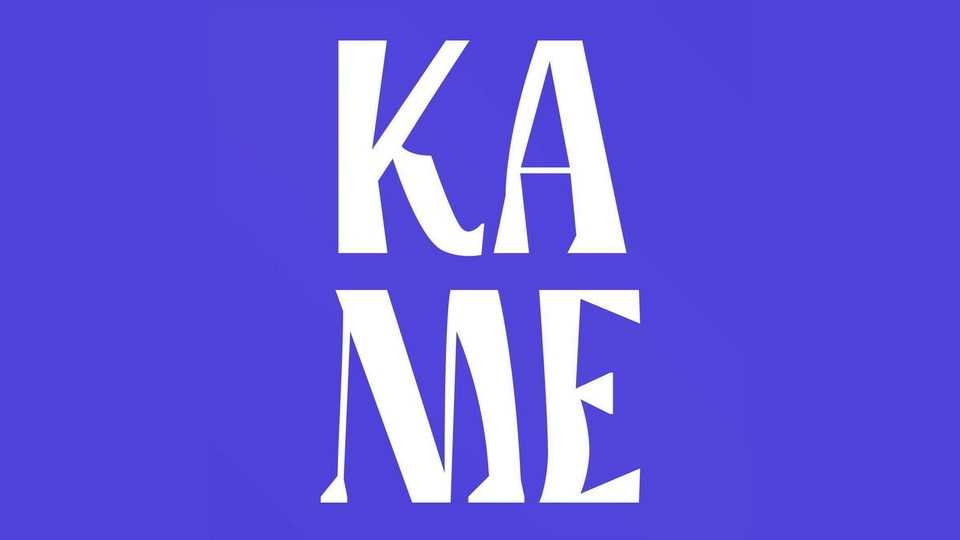
Download Kame font, a hybrid and mutative typography with three weights. Acute, legible and performative, it brings trouble within the rigidity and strictness of compositions.
Designer: Romain Goetz